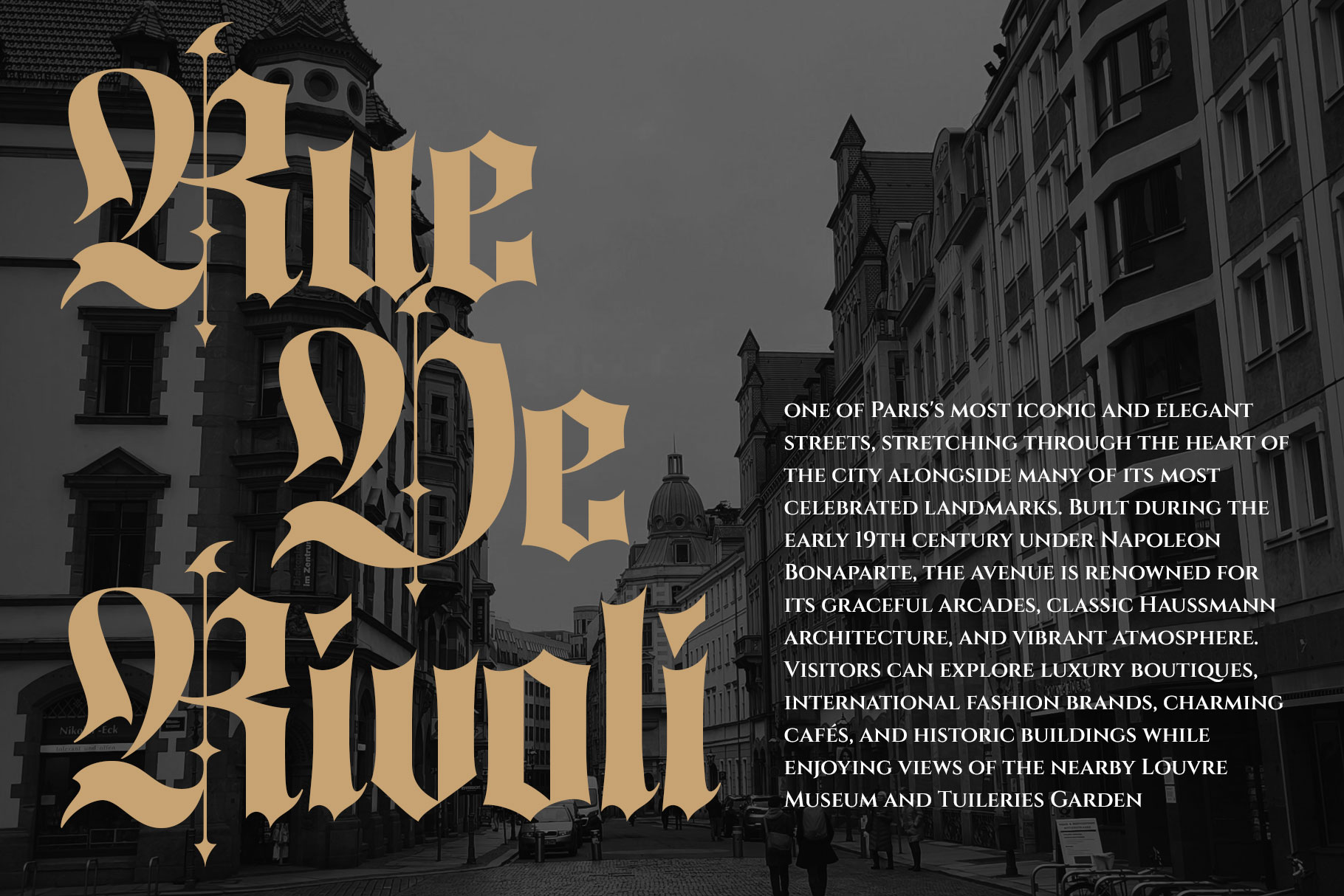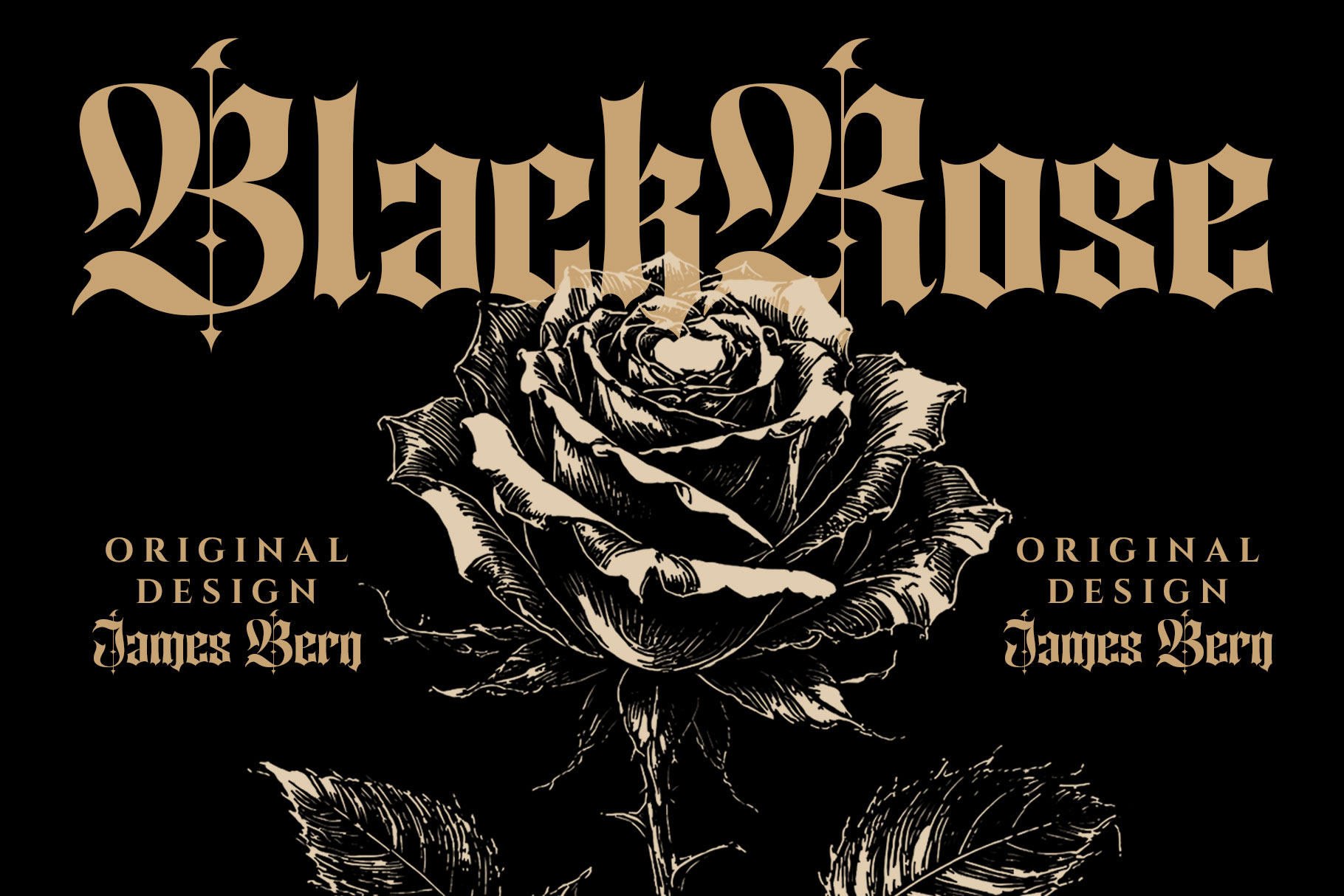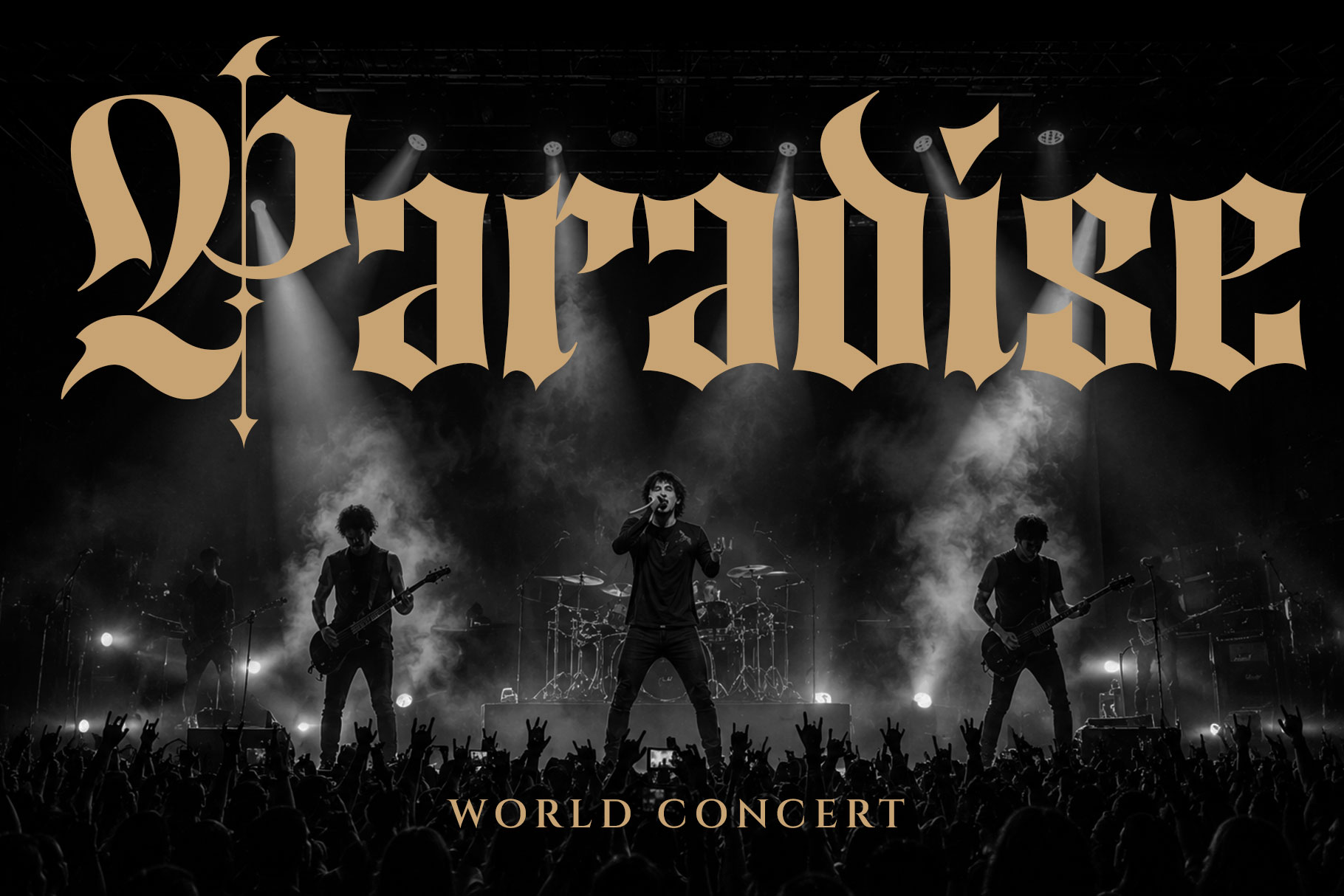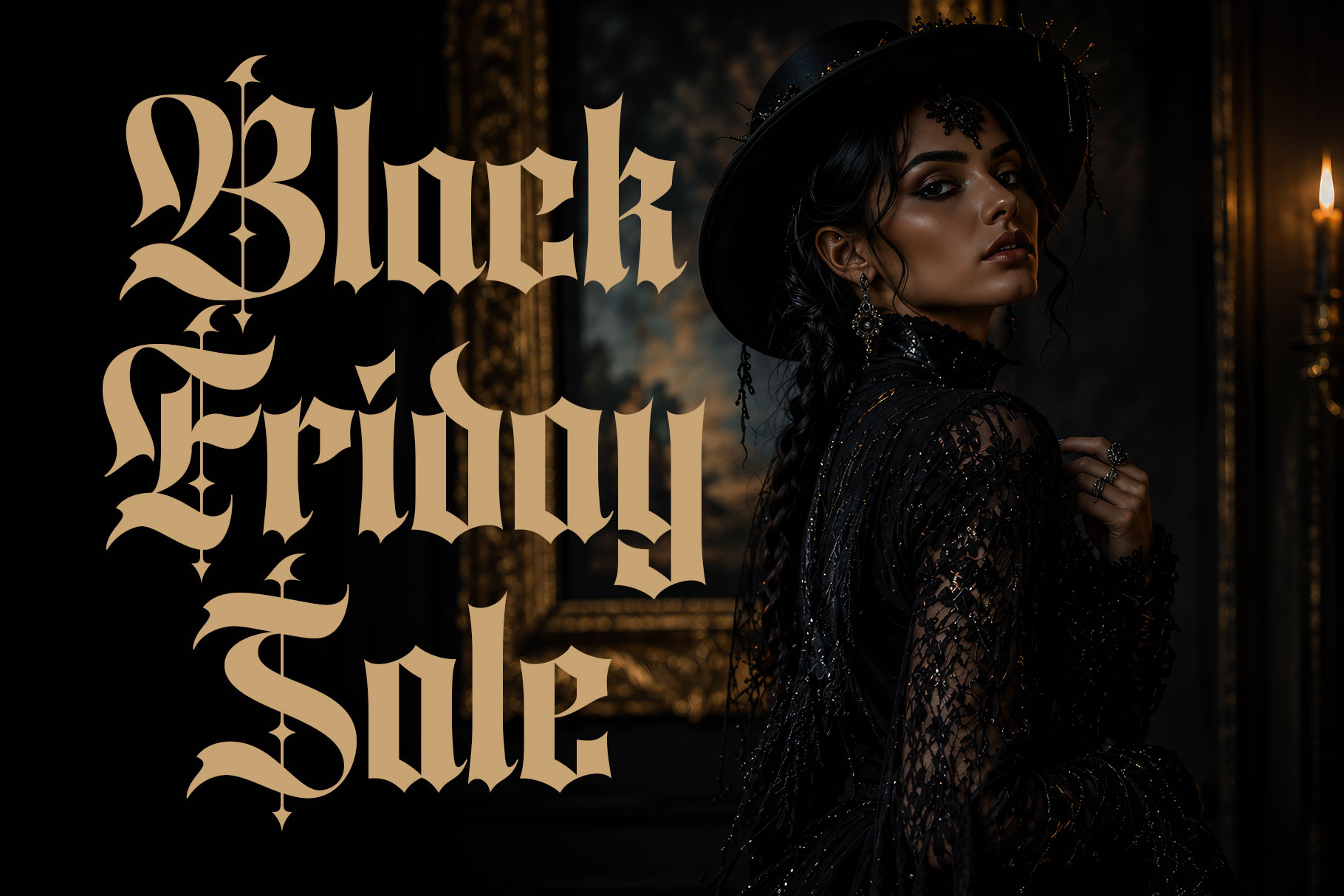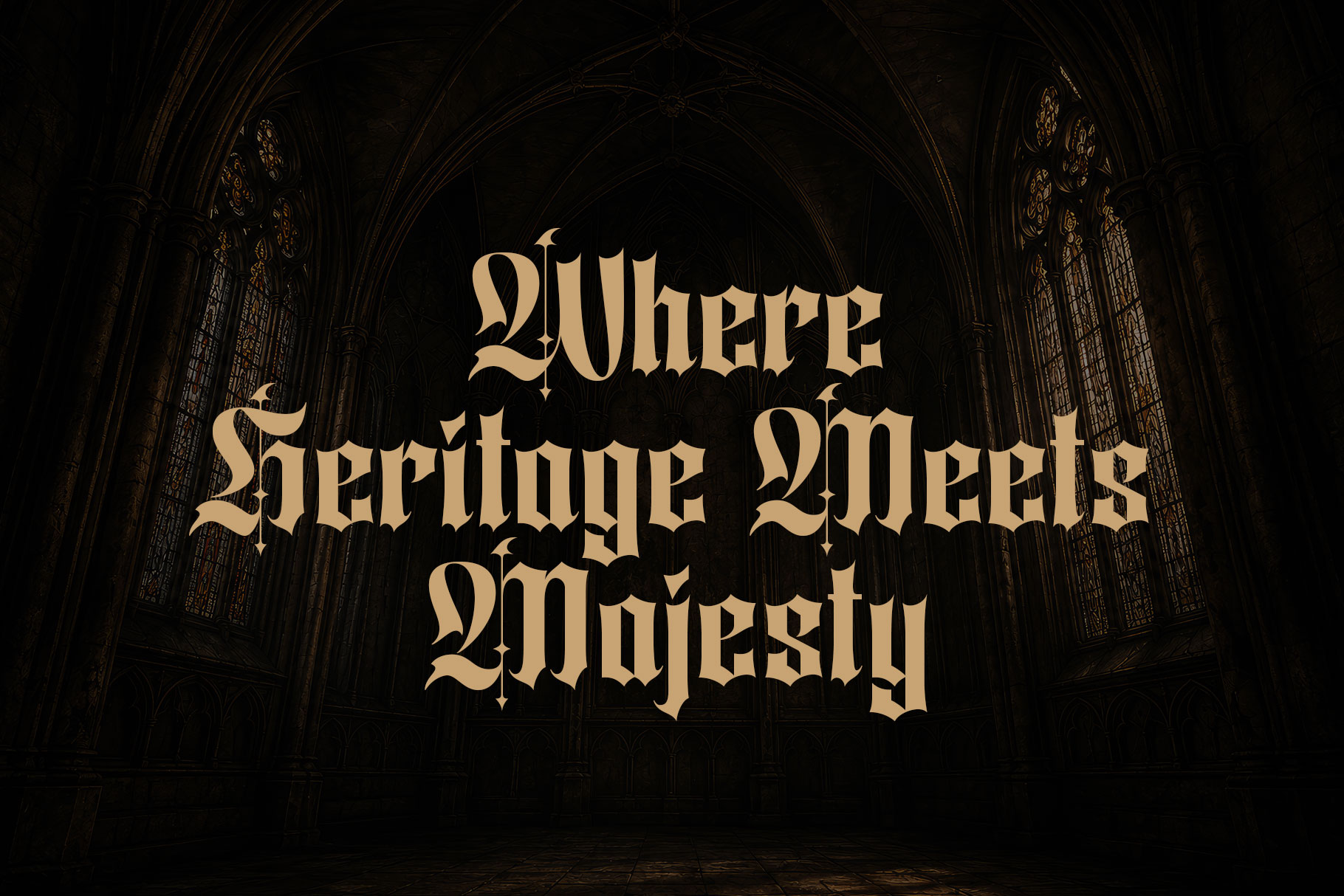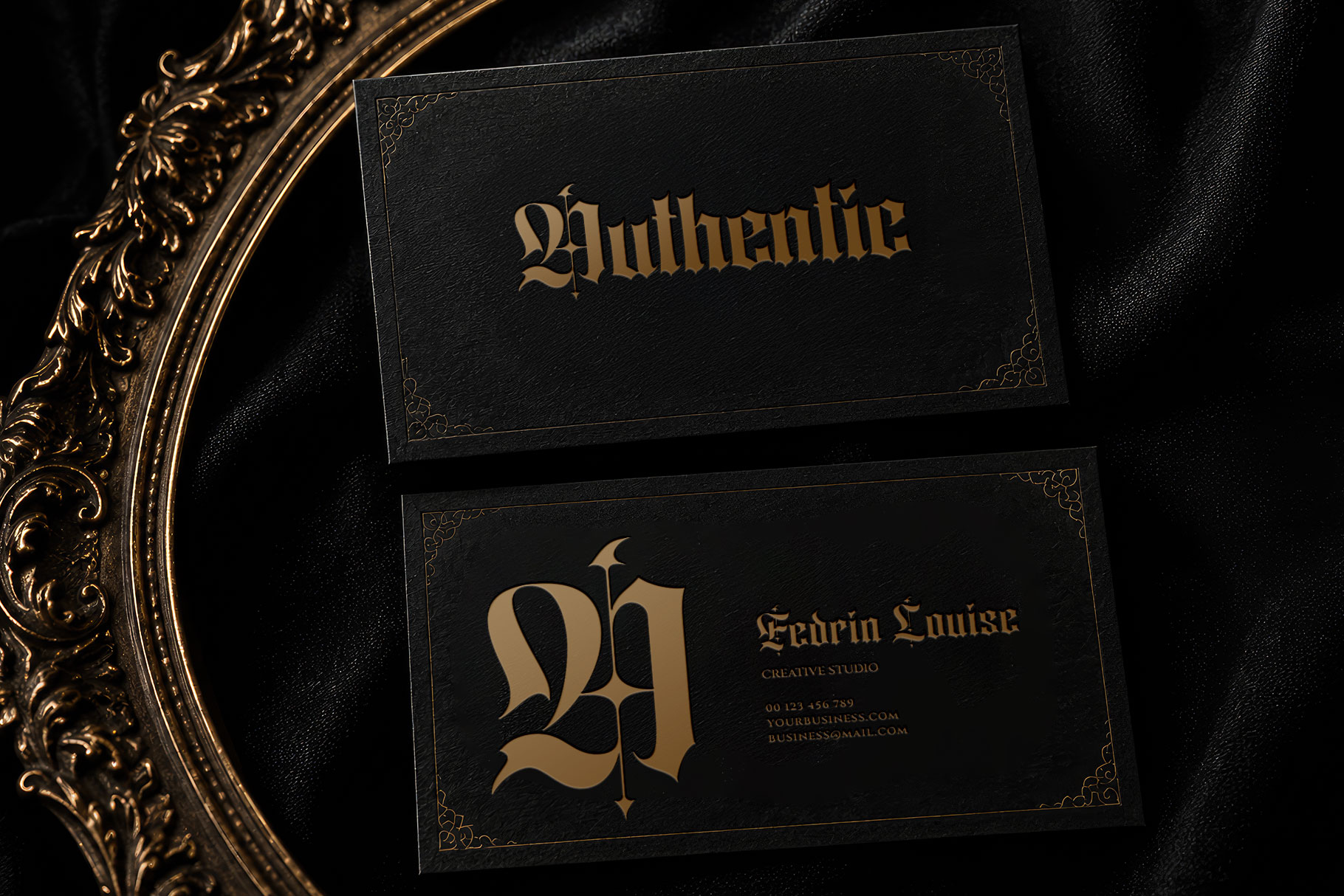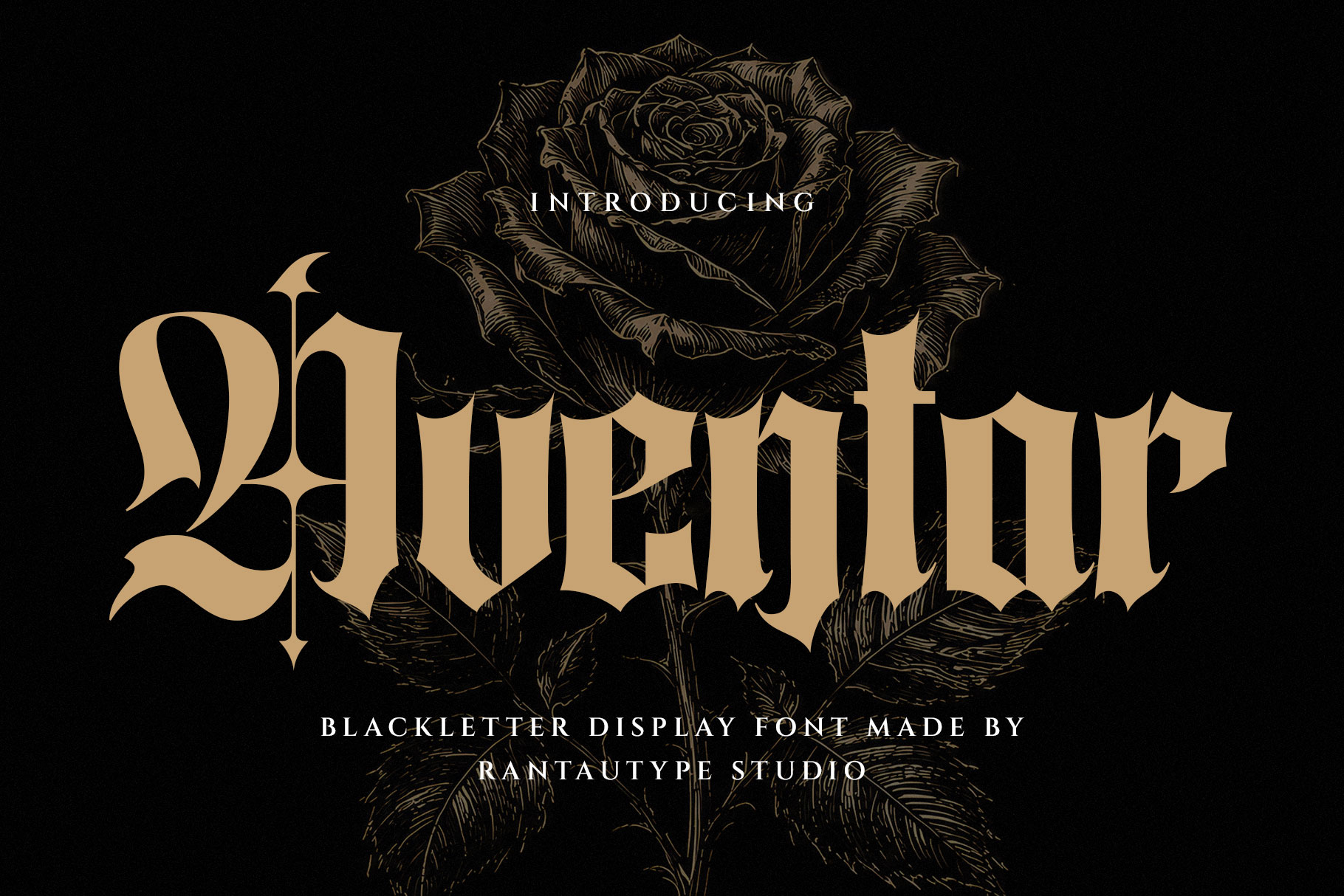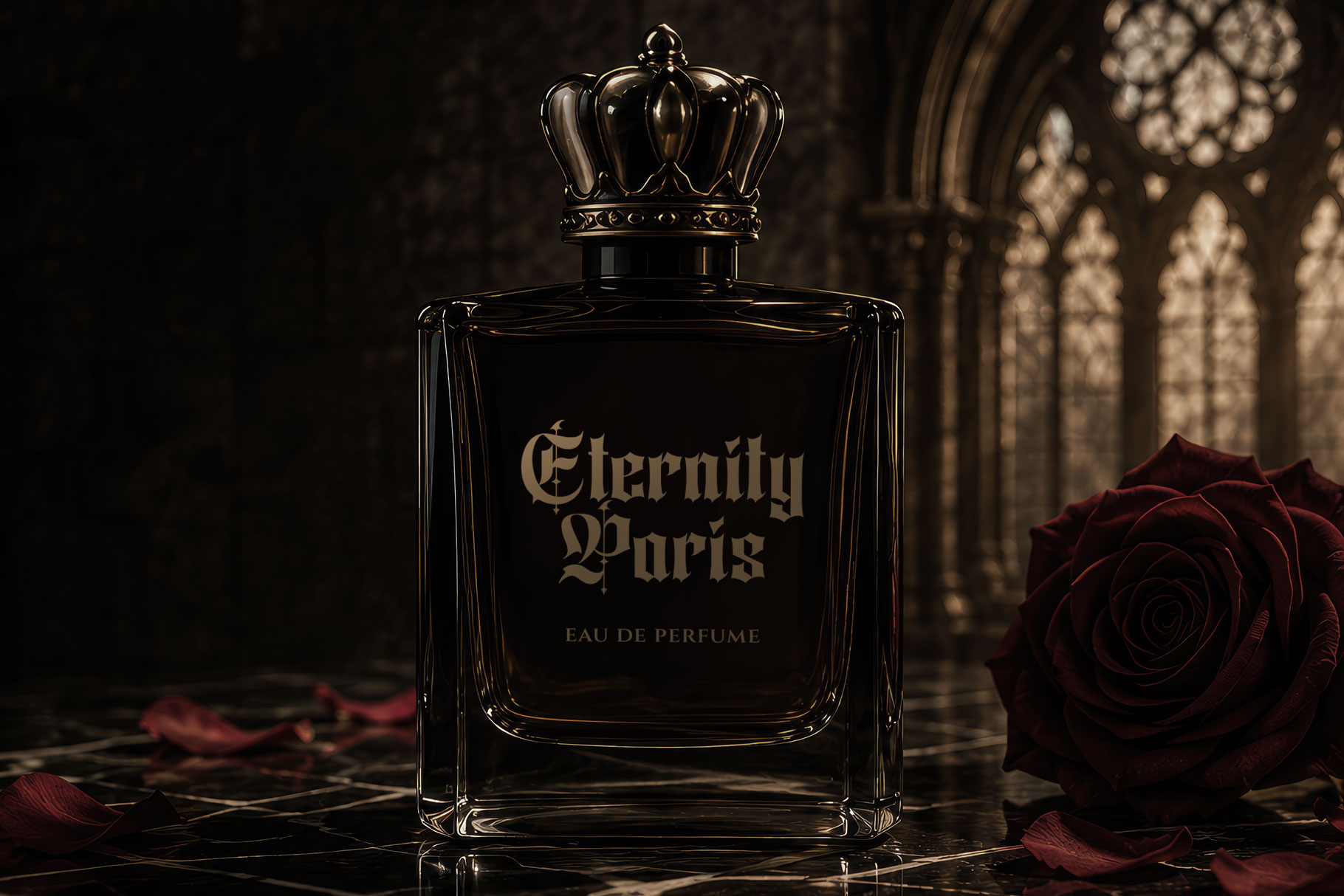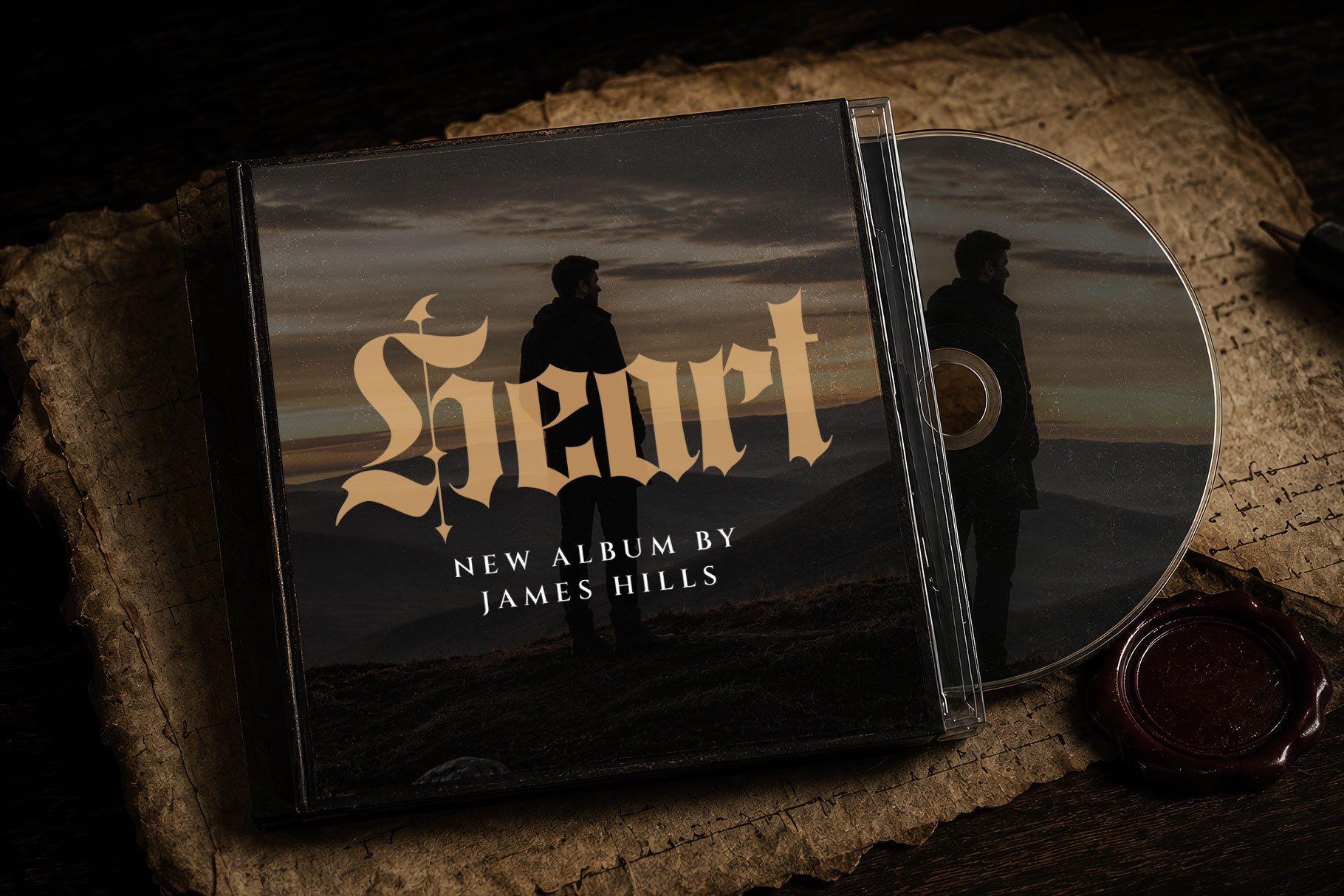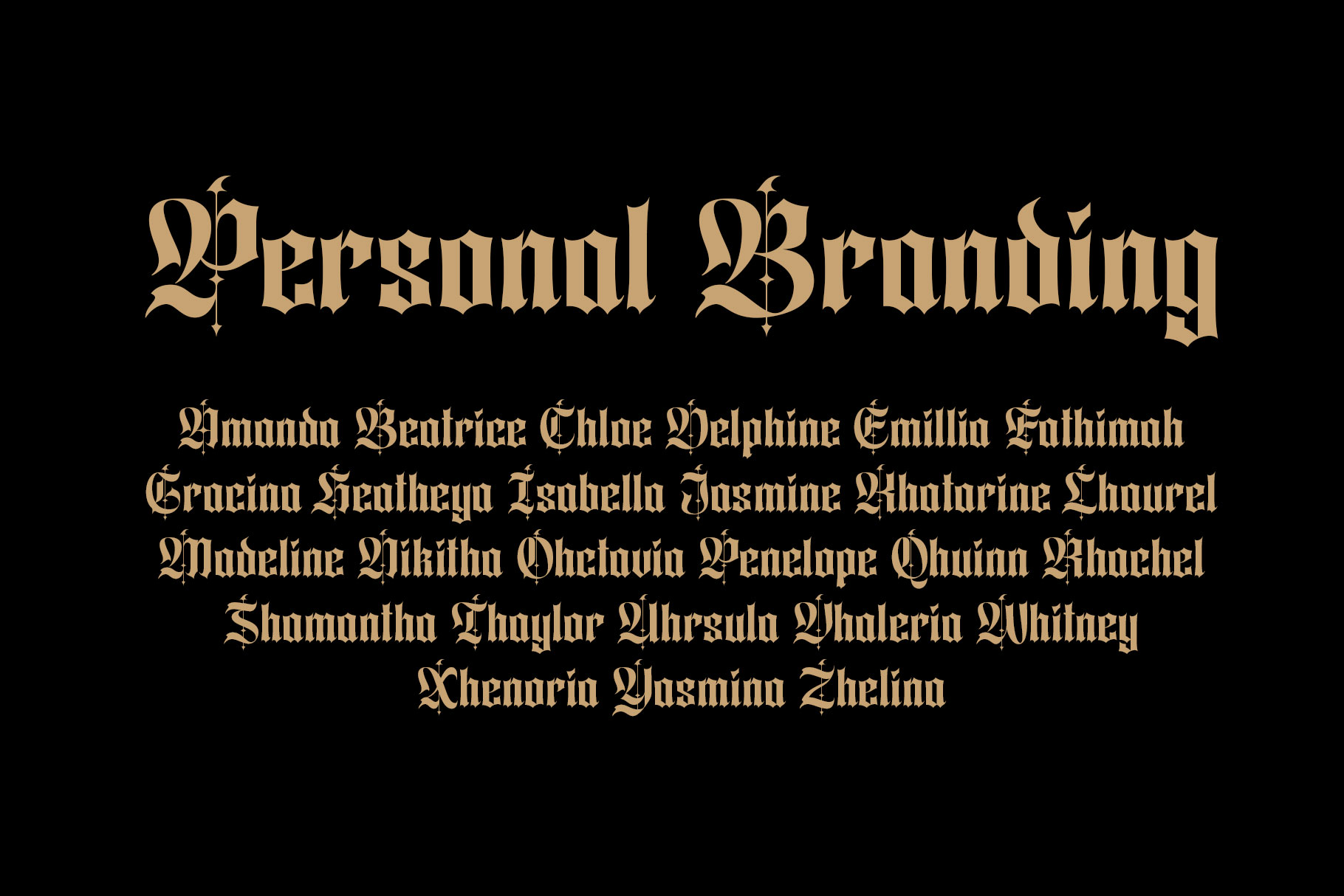
Aventar is blackletter typeface captures the timeless elegance of medieval European lettering while introducing a refined contemporary character that makes it suitable for modern branding. Inspired by Gothic manuscripts, cathedral inscriptions, and Old English calligraphy,
Aventar a perfectly choice for any creative endeavor, creating, modern, lifestyle design such as logotype, title, cover, branding, invitations, wedding designs, display and magazine, social media posts, advertisements, printed quotes, product packaging, corporate brand, product designs, labels, photography, watermarks, special events and any other project with Gothic / Medieval touch.
Aventar Blackletter Display Font